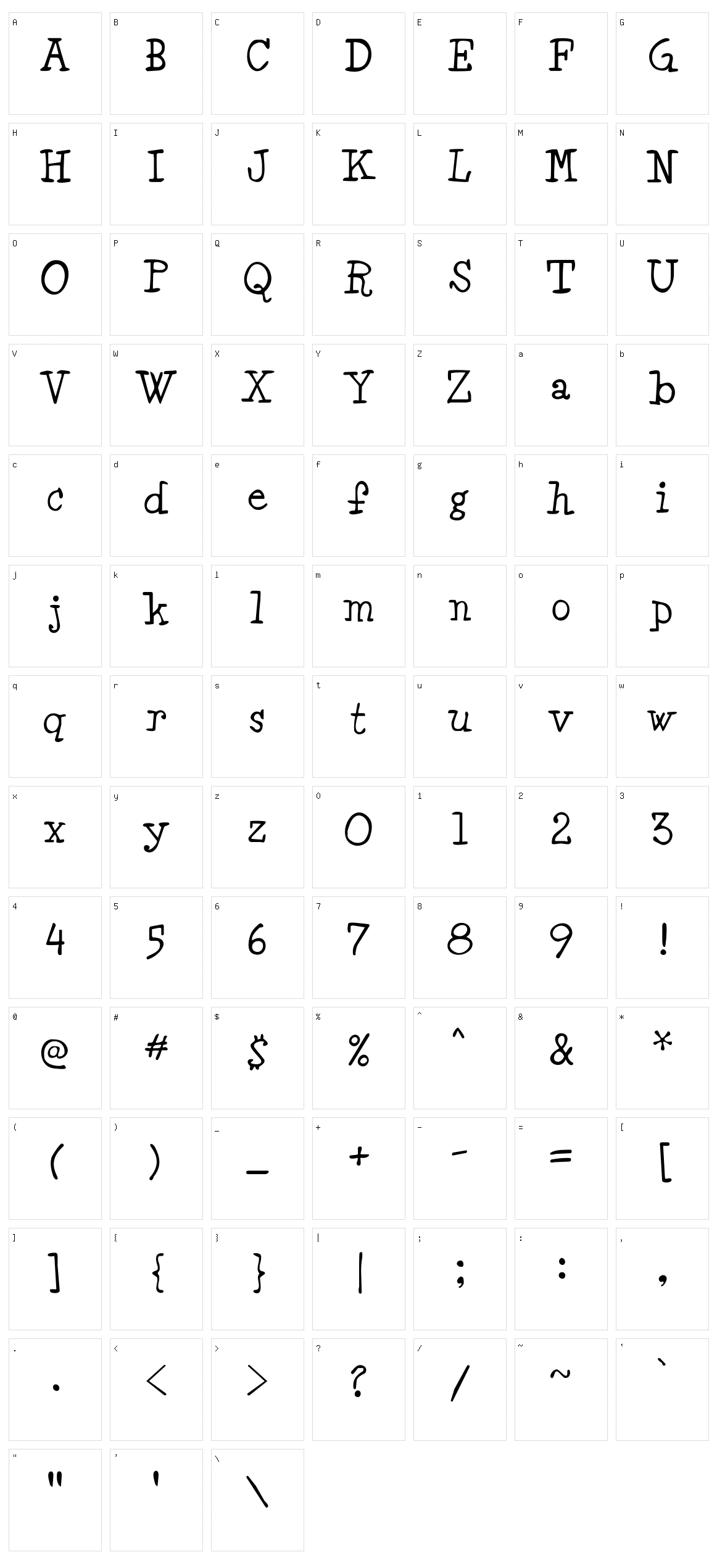
The free font Minya is carefully designed by Typodermic Fonts, showcasing a thoughtful balance of creativity and usability and falls under the Typewriter font style. When you download the ZIP file, it contains only 90.87 KB of font files, making it lightweight and quick to download. Please review the license details below to understand permitted usage and distribution rights. If license information is not available, we recommend using this font for personal projects only or contacting the author directly for commercial usage permissions.